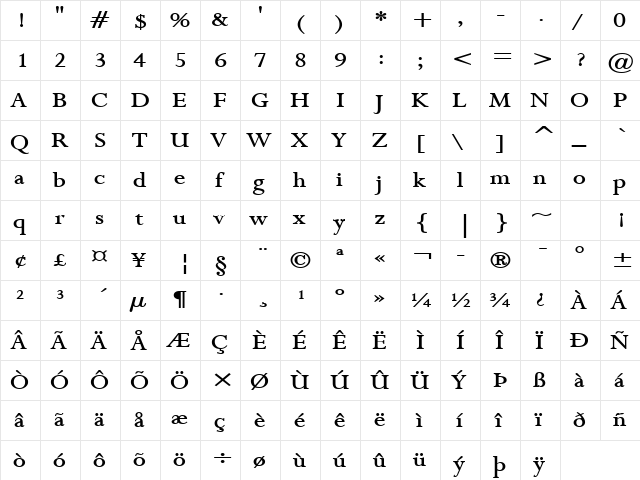
Rapid Wide Bold
Design Context for Rapid Wide Typeface
Rapid Wide offers clean, dependable letterforms without strong stylistic allegiance, making it a practical choice for designers who need flexibility. Its bold stroke weight gives it real presence on the page.
Pro Tip: Use Rapid Wide in both headline and body roles to test its range before committing to a single application.